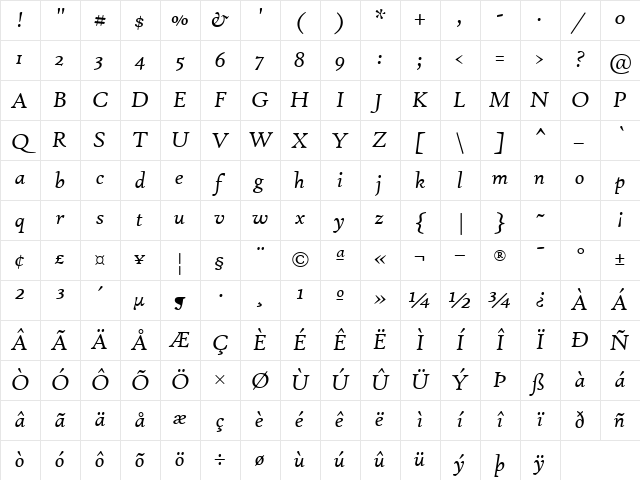
High Tower Text Italic
Foundry: The Font Bureau, Inc.
Designer: Tobias Frere-Jones
High Tower Text Family
High Tower Text Italic
Design Context for High Tower Text
High Tower Text is a composed and adaptable typeface that performs quietly and consistently across a wide range of design contexts. The slanted form adds forward momentum and visual energy.
Pro Tip: Use High Tower Text for emphasis, pull quotes, and subheadings where its slanted energy can add rhythm to the layout.